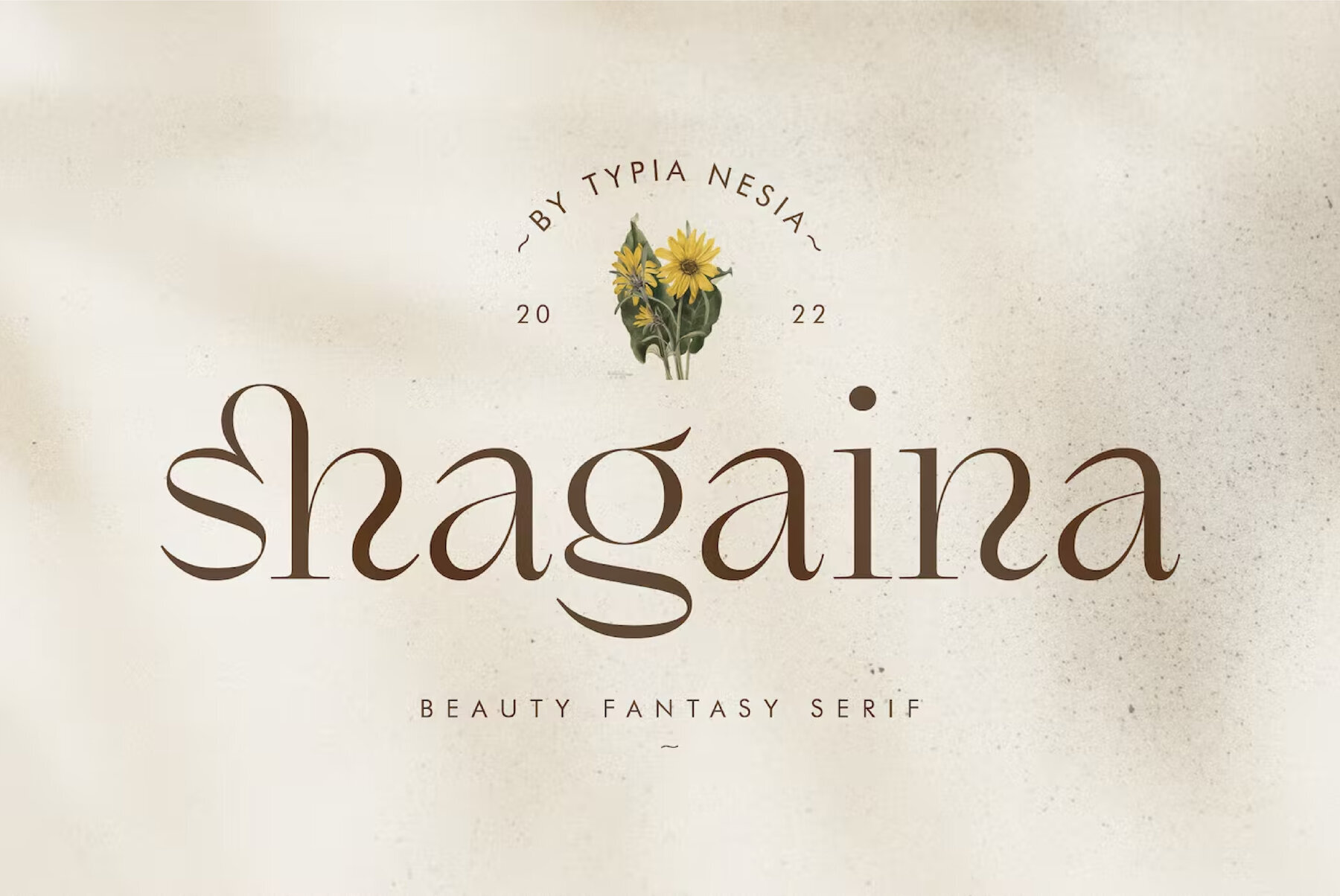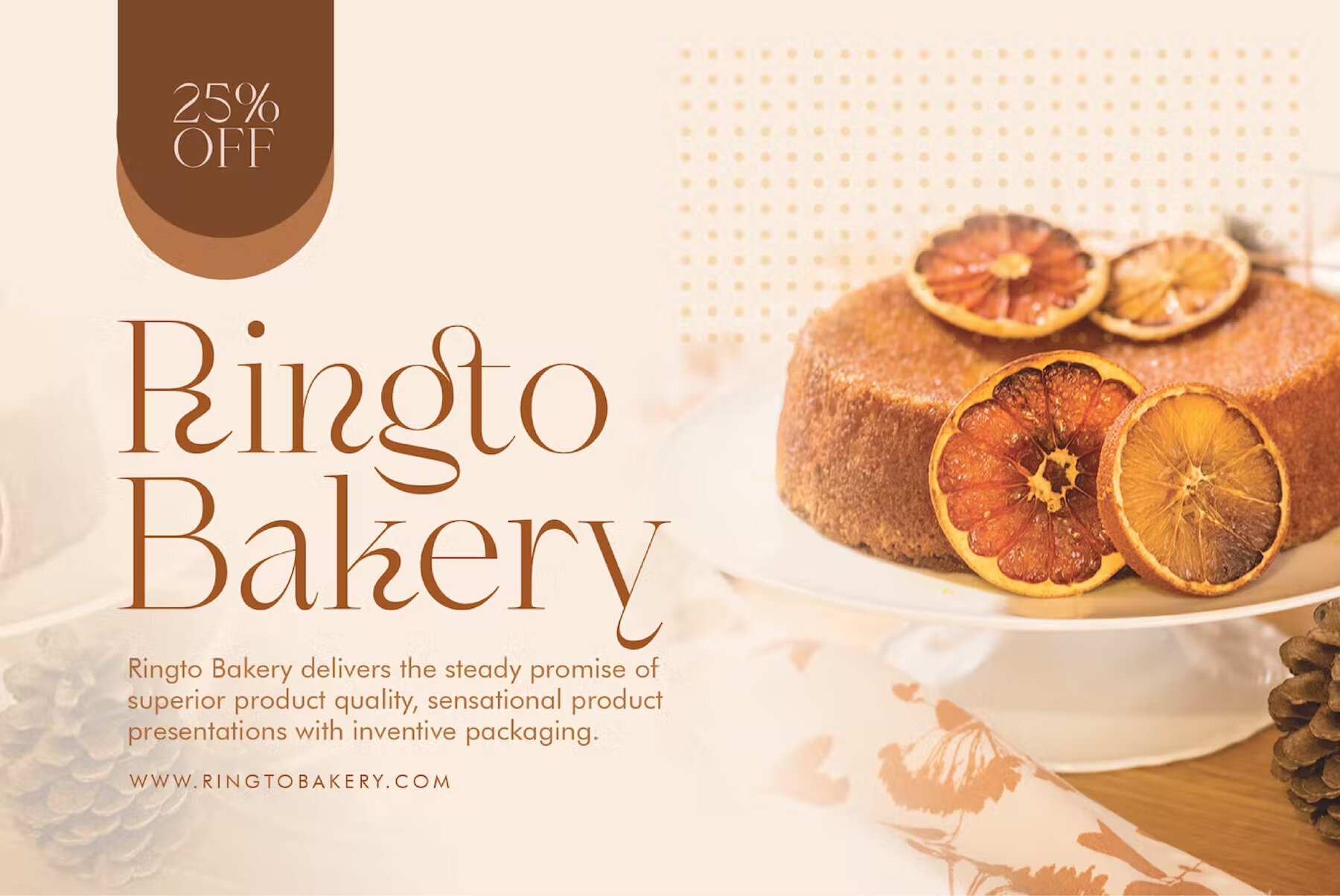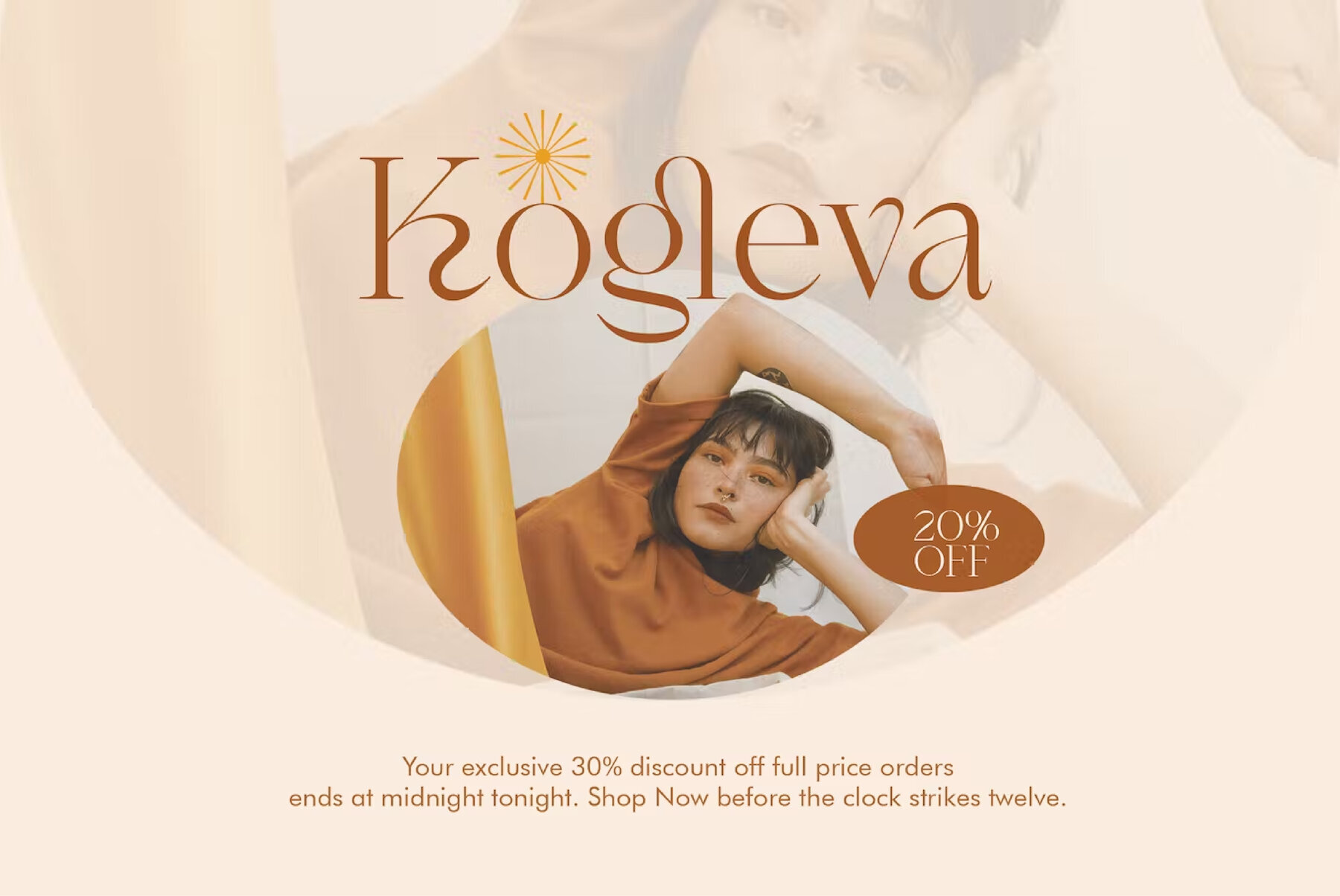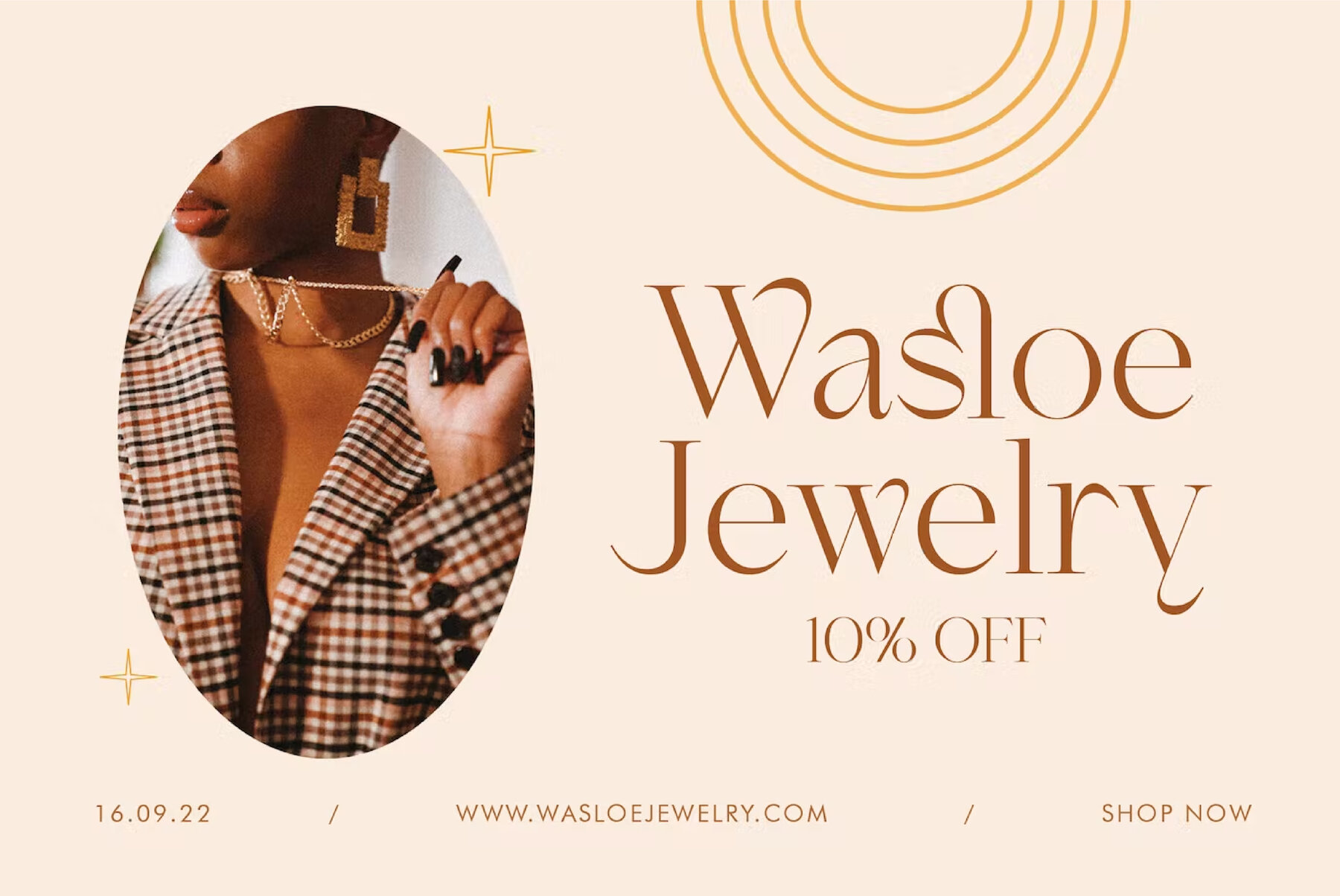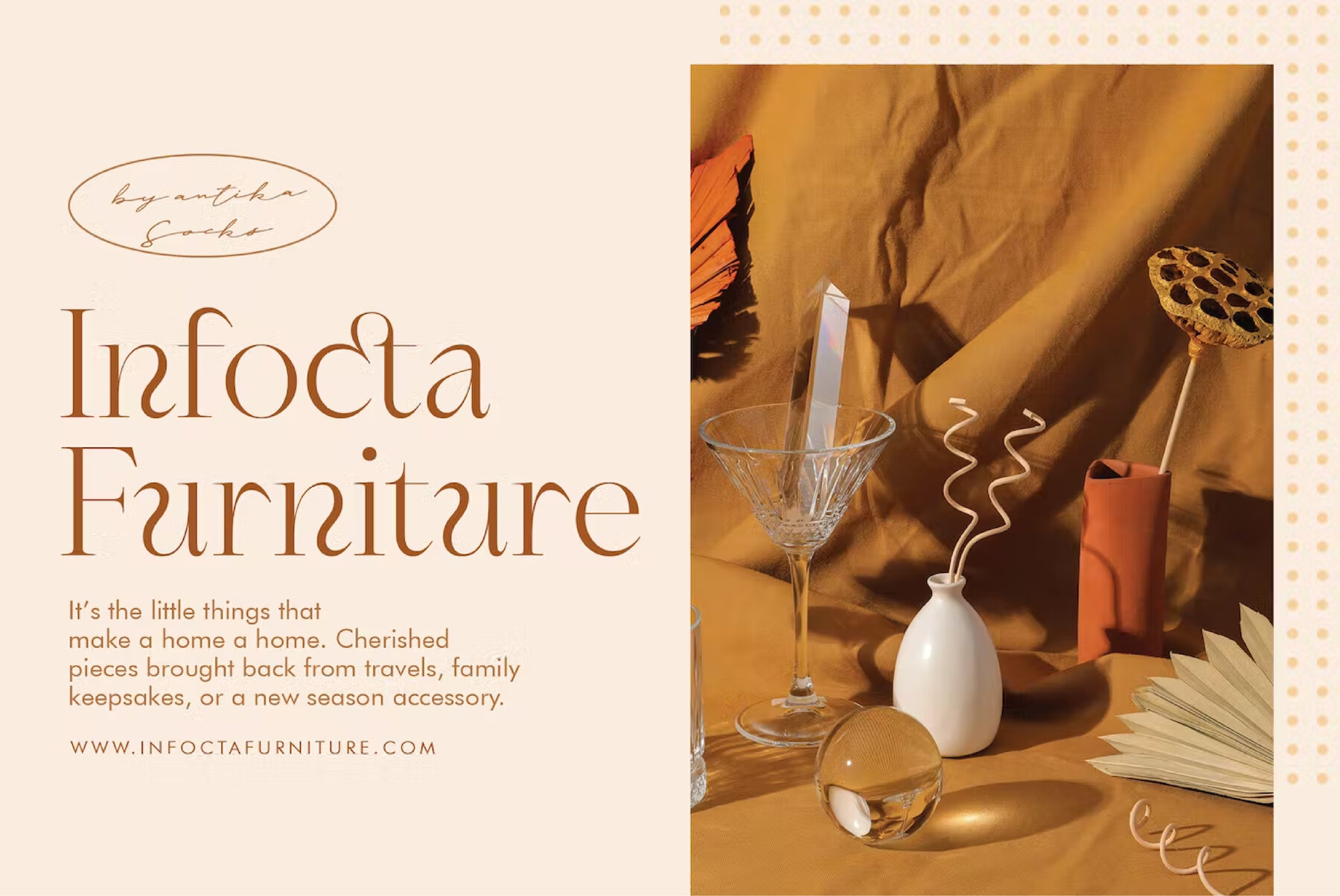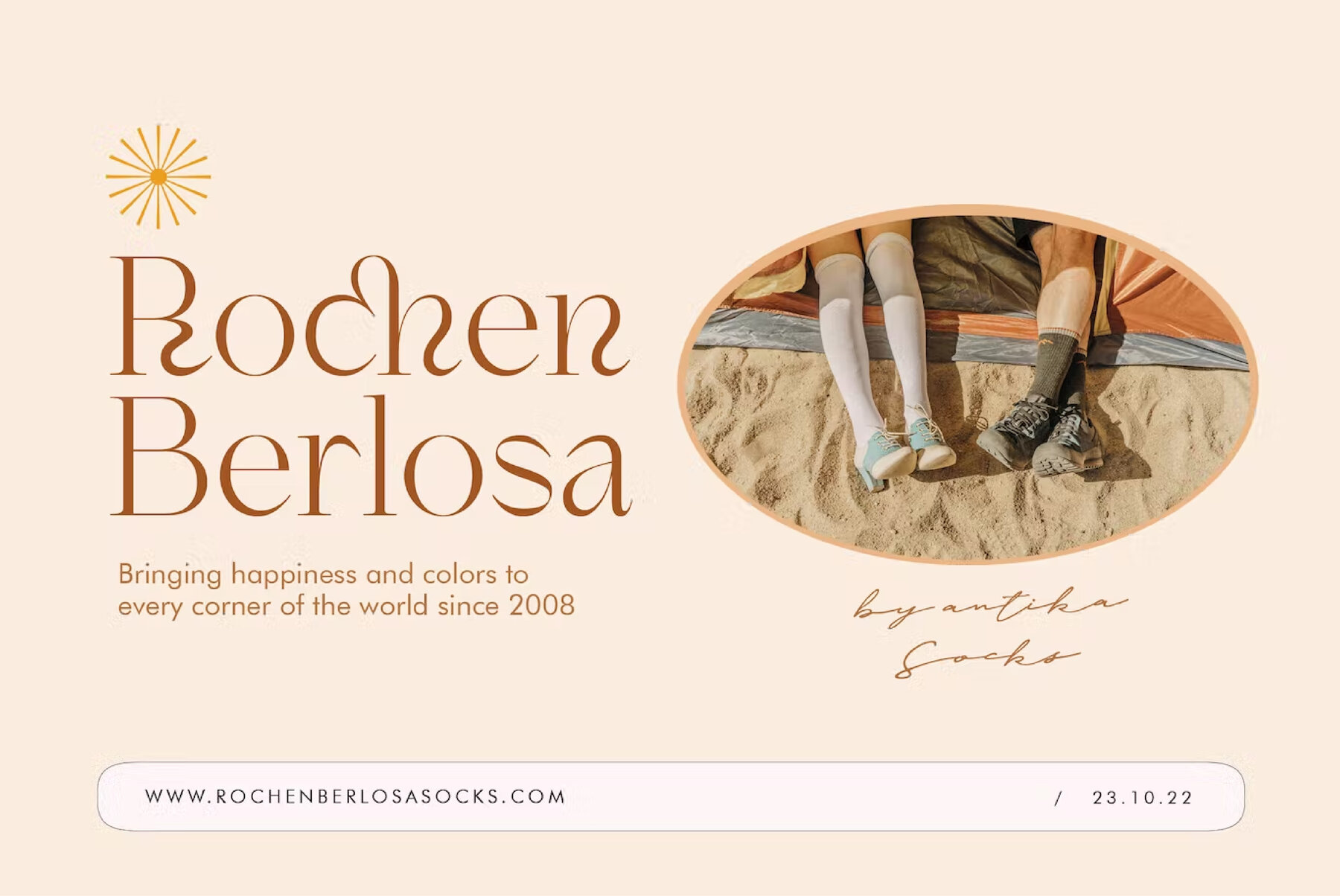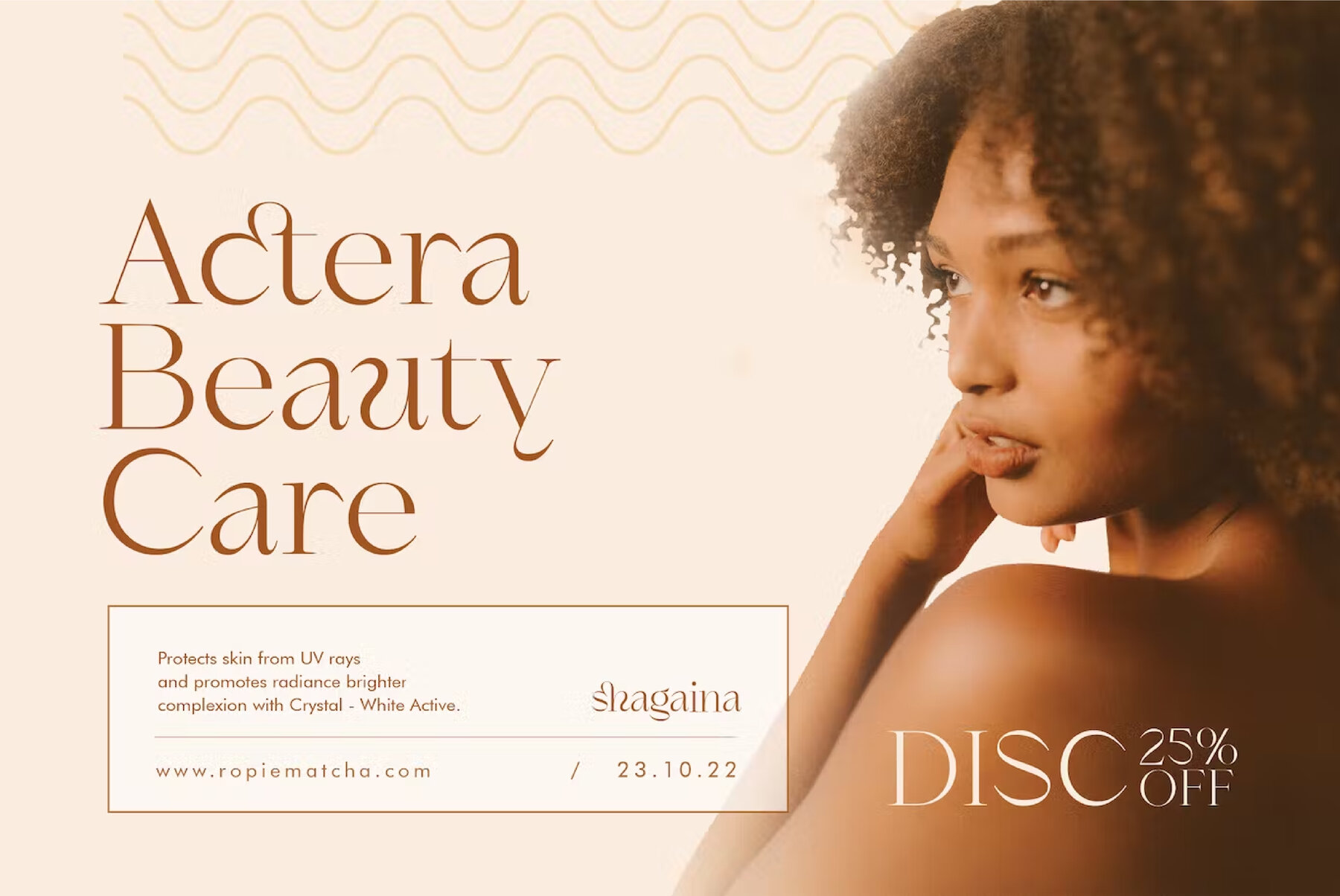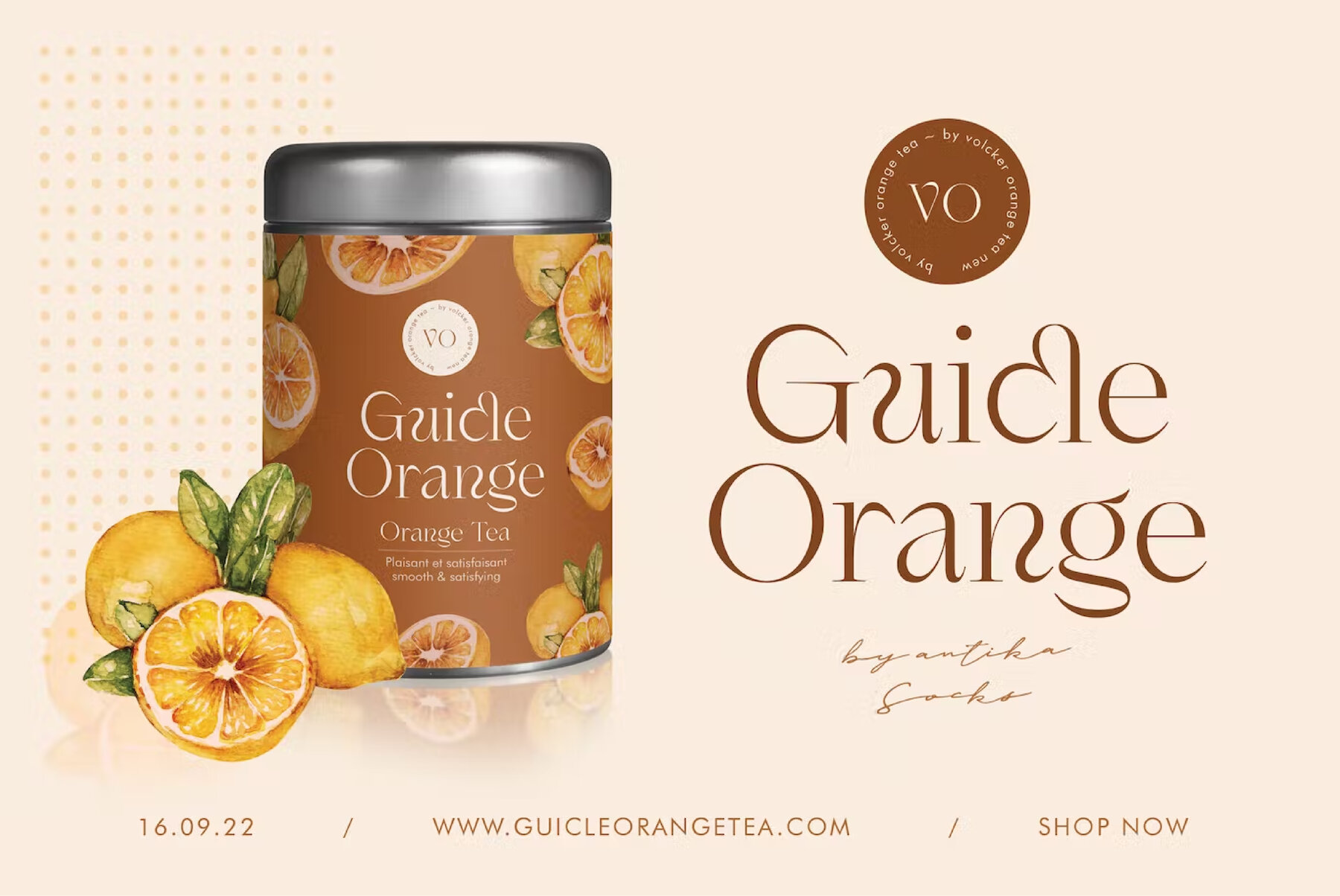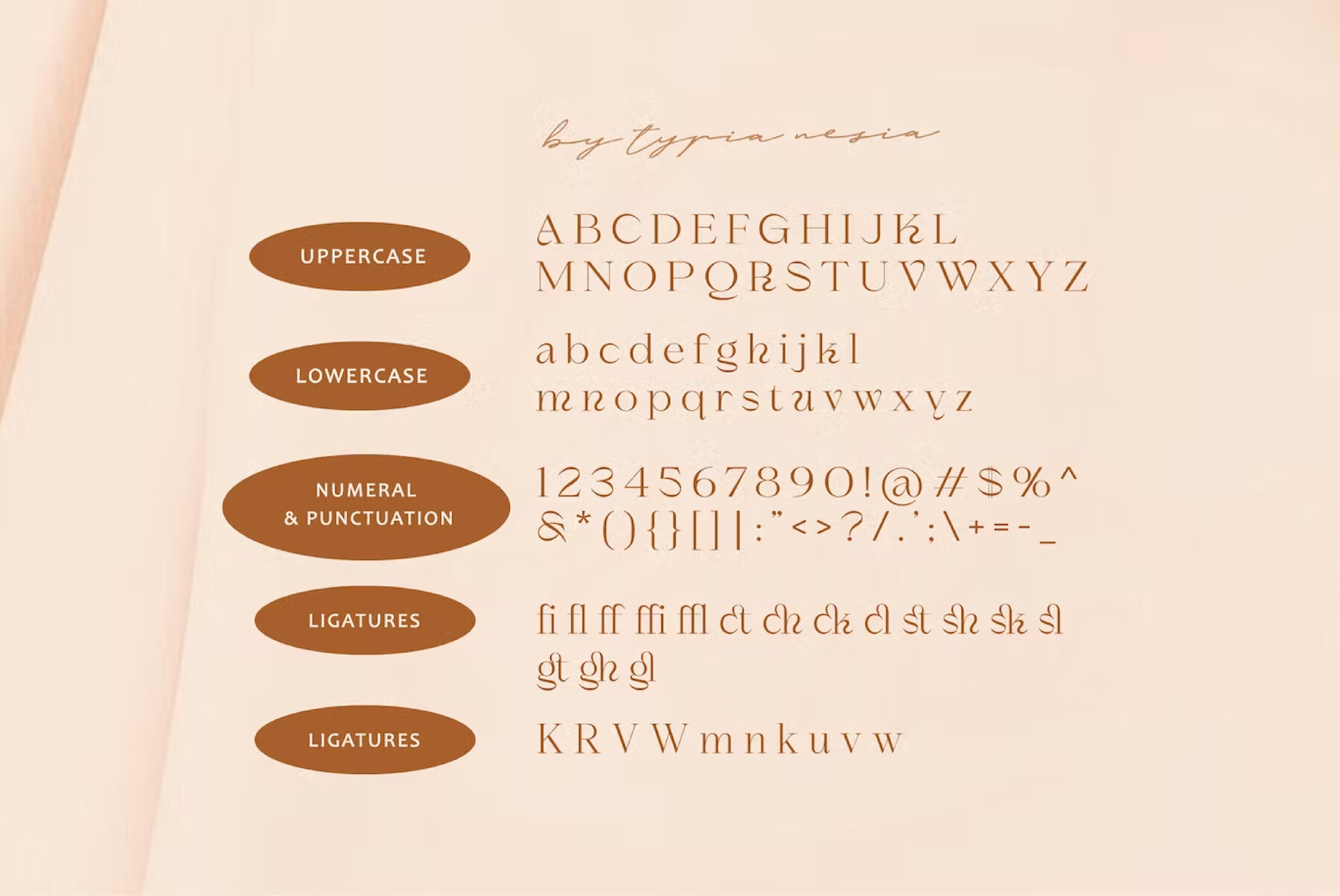
Shagaina Font
Shagaina Regular
Shagaina by Typia Nesia Std is a sophisticated serif font, designed with a variety of alternates and ligatures to enhance your typography designs. This versatile font is ideal for diverse projects, ensuring your work stands out with elegance and charm.Shagaina: Versatile Serif with Stylish Alternates